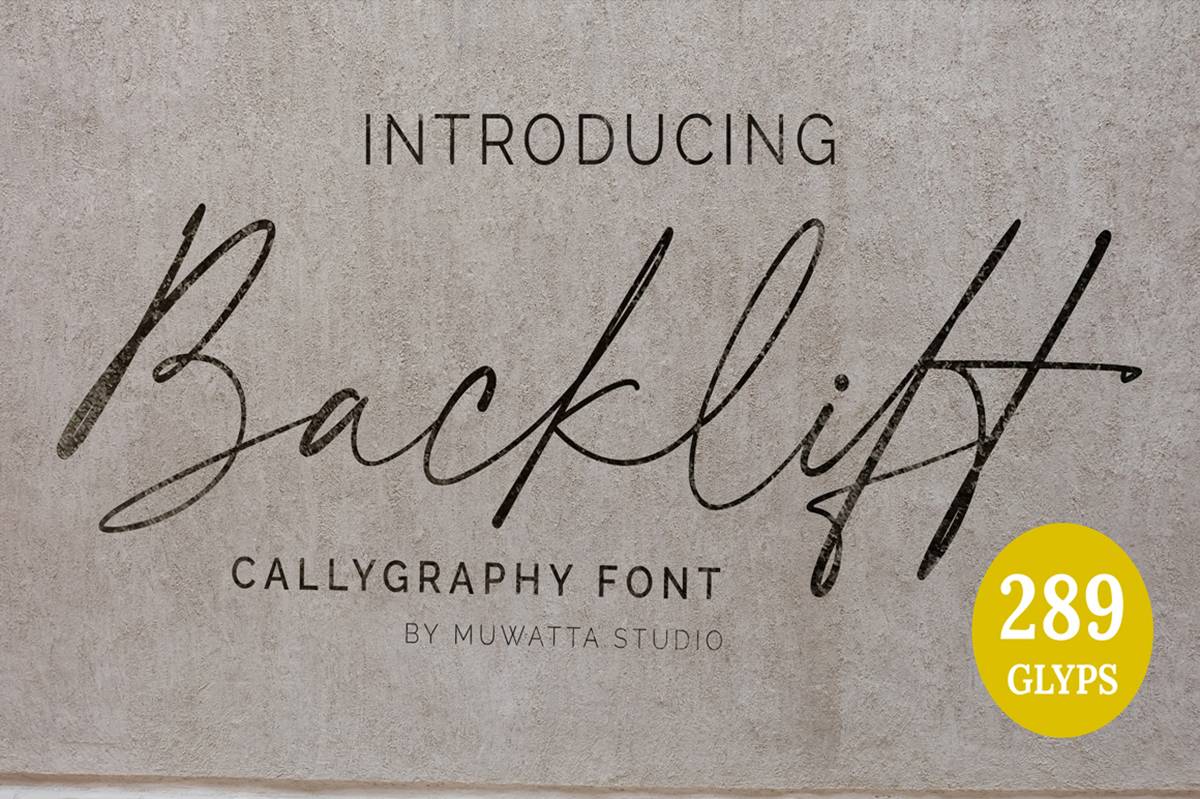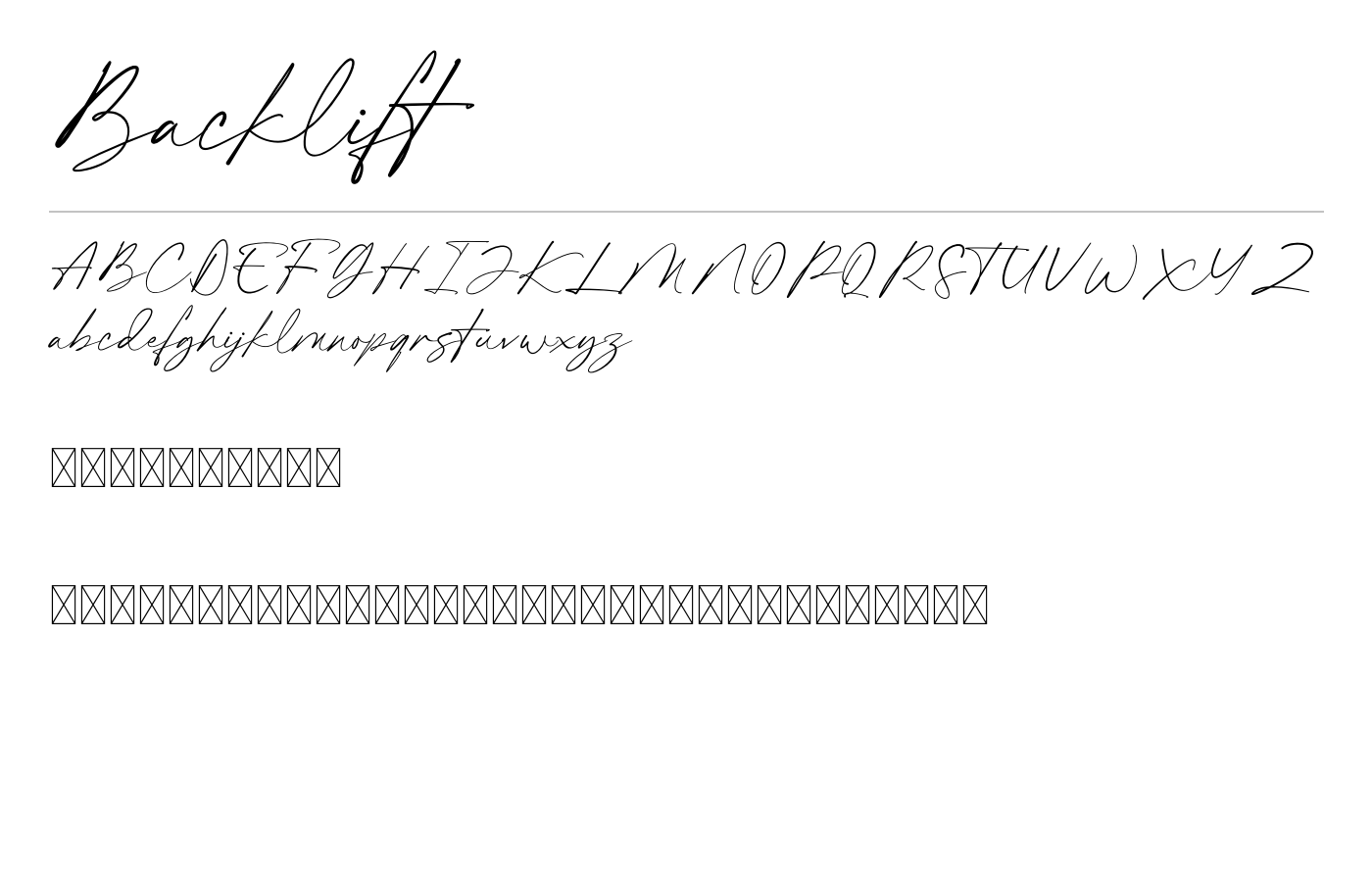
Backlift is a delicate, handwritten script font characterized by its thin, flowing strokes and elegant, slightly irregular letterforms that convey a personal and artistic touch. With its light weight and airy structure, it works beautifully for creative branding, invitations, and editorial projects where a refined yet approachable style is desired. This font brings a sense of sophistication and individuality, making it ideal for designs that seek a natural, handcrafted feel.